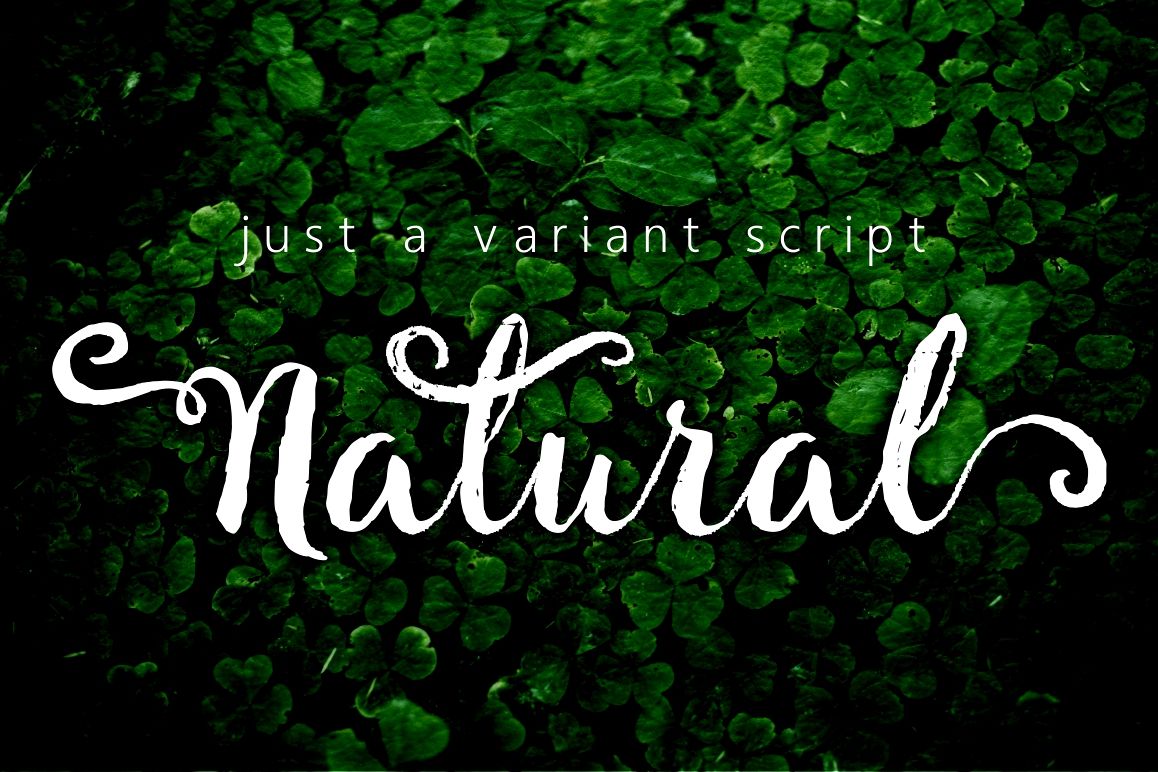
Natural Script
Natural script
is a new varian of handmade script typepace. present to you to complete your colections of script font. This typeface has been enriches with additional alternates characters up to 630 glyphs. Do hope helpfully to catch any design soul. finally, no word to say than "Go success and enjoy it".